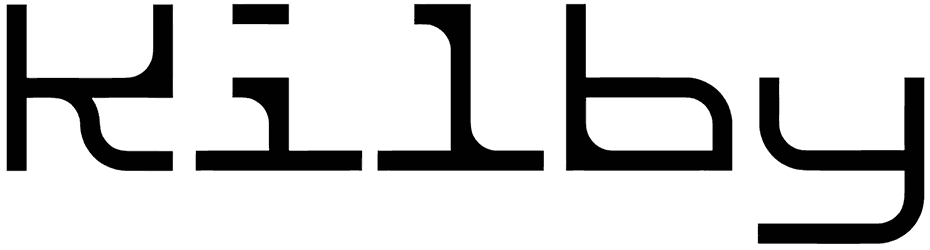
Kilby Font
When you look at the Kilby font, you may be surprised by its entertaining style. This techno font makes your content unforgettable and expands your selection range because of its different weights.
Moreover, Kilby may be helpful for several cases, such as websites, social media posts, and applications. This sci-fi font’s letters look wide with angular edges, grabbing the viewer’s attention at first glance. If your goal is to impress your audience, press the download button now.
KILBY was inspired by the technology of the new millennium and the futurism of the Y2K era. Free to use in both personal and commercial projects. Comes in two weights.